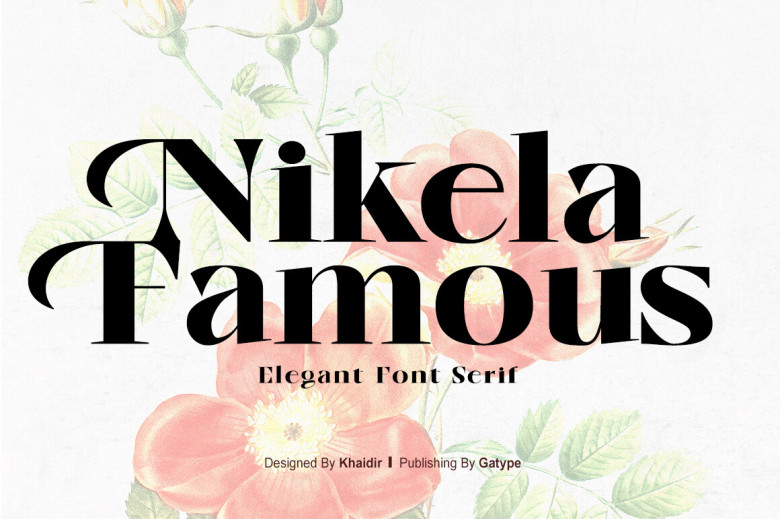
Nikela Famous Font
Nikela Famous is an incredibly flexible serif typeface with an elegant, clean design, featuring strong serifs for stability and orderly letter formation. Perfect for Instagram posters, web design as a logo or magazine usage or even use in product logo design projects,
its sturdy construction offers letters in harmony and orderliness – perfect for Instagram posters, posters and product logo design alike!
Nikela Famous Serif Font